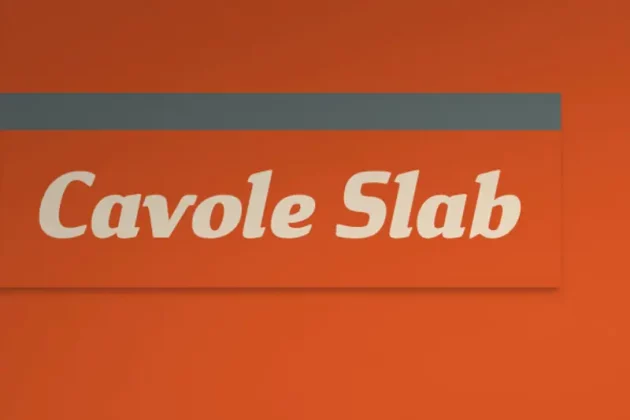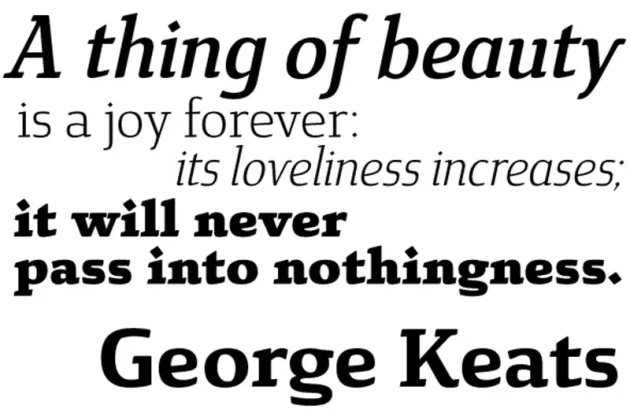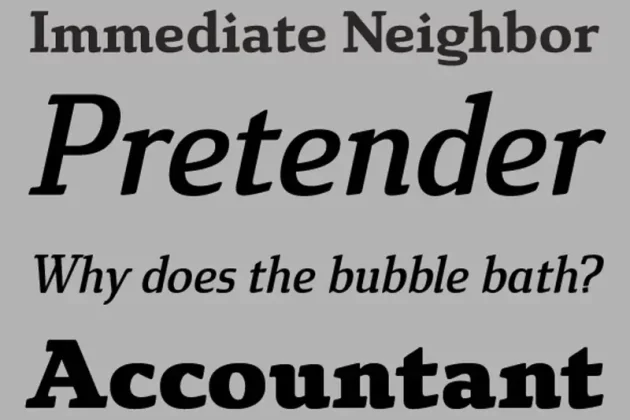
About Cavole Slab Font
“Cavole Slab is a new slab serif, designed in early 2011, that has a strong influence from Dutch typography. The name is an altered form of the Portuguese word for feather, emphasizing the typeface’s soft and friendly character. Slab serifs give this face plenty of impact and make it an excellent choice for contemporary designers. The font family includes a very dark and powerful black all the way down to a hairline thin weight, giving a tremendous versatility. The family also features dynamic italics that add plenty of emphasis and momentum.
Cavole Slab is suitable for both headline and text settings and should easily find its place in a number of different settings, from corporate identity to magazine body copy.
There are six weights that come with complementary italics, and each font includes over 450 characters and extended Latin-based language support. The typeface family comes in OpenType format, and OpenType alternates are easily accessible through OpenType enabled applications such as the Adobe suite or Quark. Please see the informative .pdf brochure to see what OpenType features are available and to see them in action.”